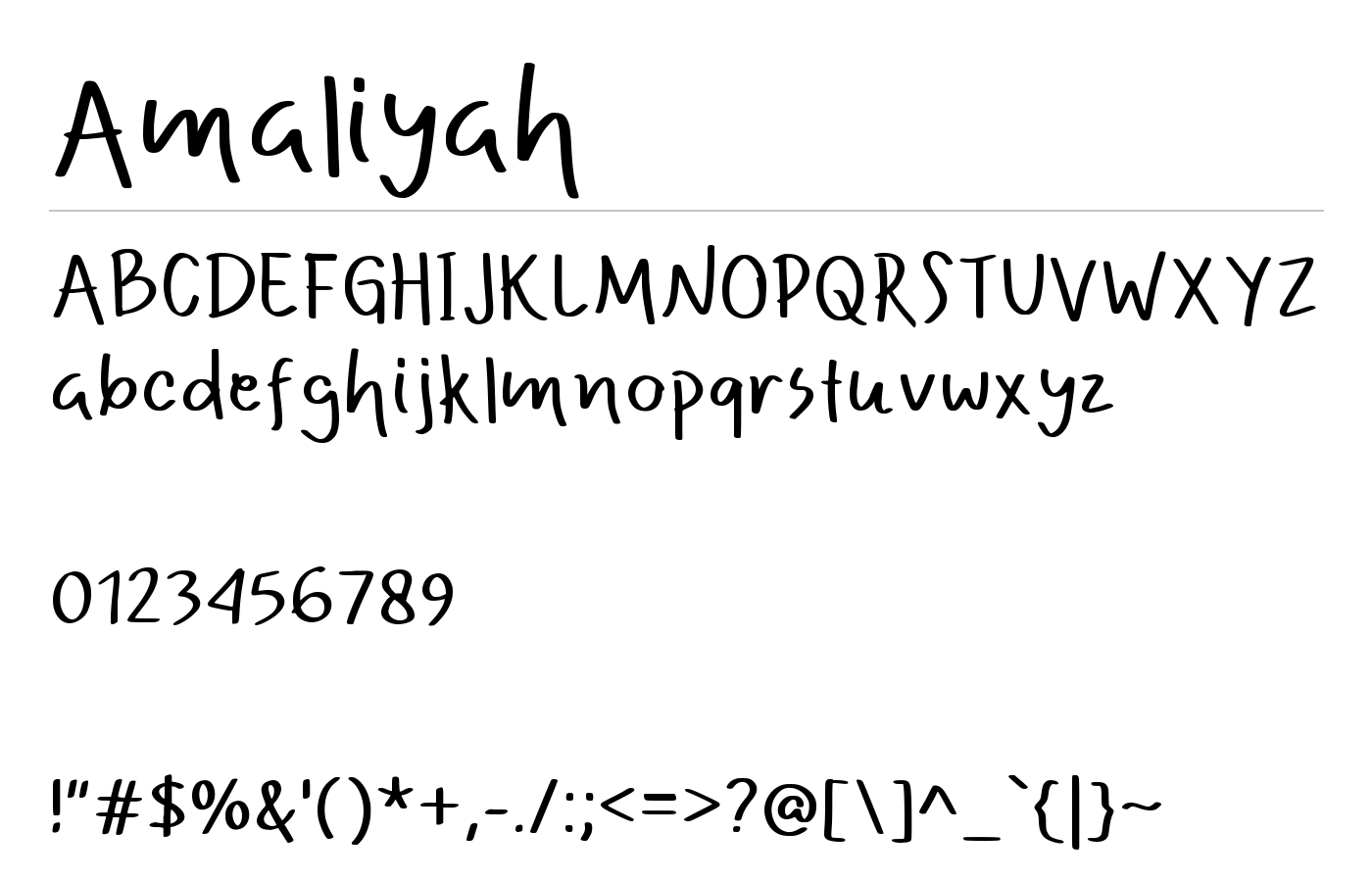
Amaliyah is a casual, handwritten sans serif font with a friendly and approachable feel. Its slender strokes, moderate x-height, and playful letterforms make it ideal for informal designs, personal branding, and creative projects where a warm, human touch is desired. This font works well for logos, social media graphics, and invitations, bringing a personal and inviting personality to any text.
Amaliyah Font
About Amaliyah Font
| Font family | Amaliyah Font |
| Designer | Nur Aisyah Amalia |